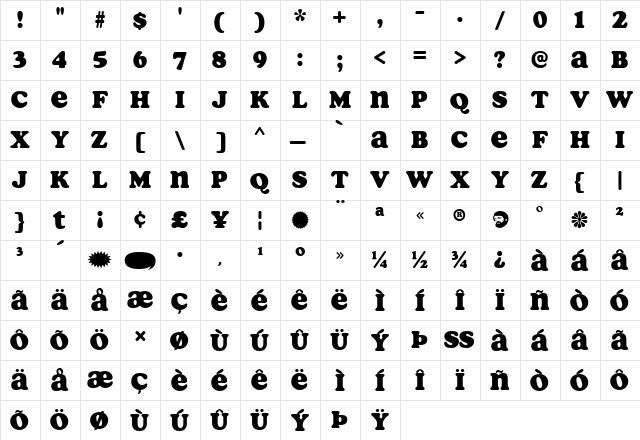
Soap Regular
Design Context for Soap Typeface
Soap offers clean, dependable letterforms without strong stylistic allegiance, making it a practical choice for designers who need flexibility.